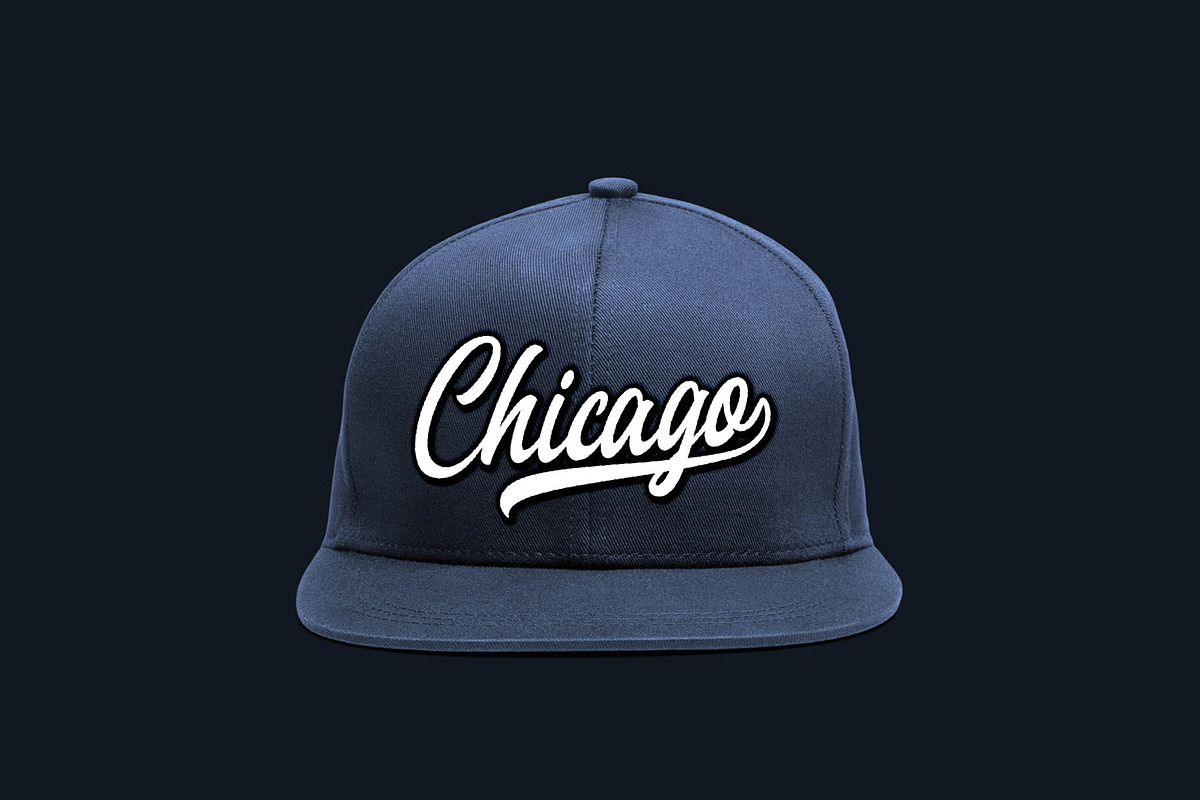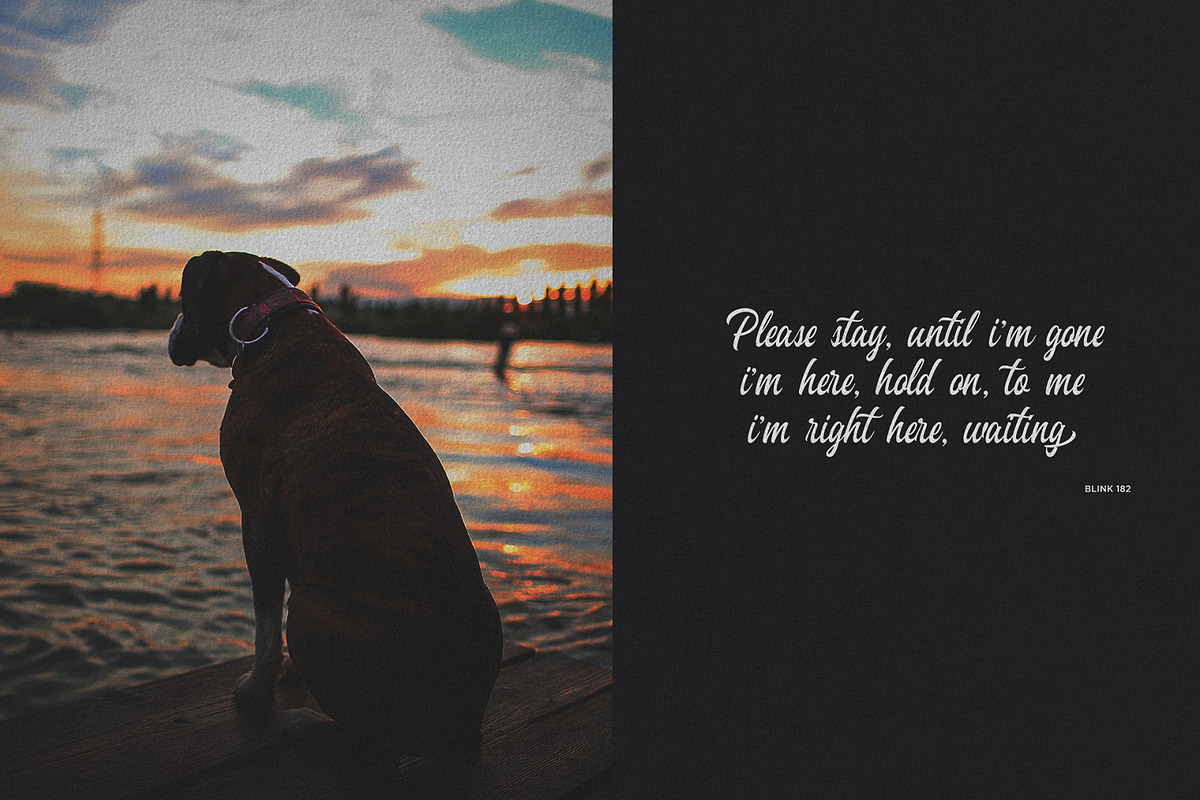
Heavenly Script
The Heavenly is a striking script font which brings lots of personality to your designs. It includes flowing characters which are ideal for creating an attractive message.
It can be used for posters, branding, advertising, and much more!
- Uppercase Alternate
- Repair of several glyphs
- Swash Update
- German letter ß
- Extra
- Opentype Features
- Standart Ligature
- Multilanguage Support